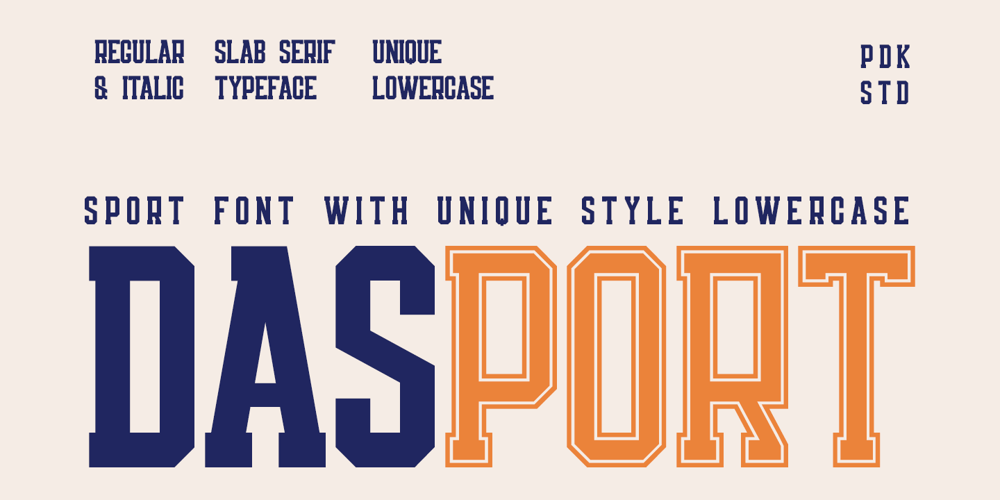
Dasport
Dasport font
Dasport Font Family was designed by Sagara Nararya and published by Pandeka Studio. Dasport contains 2 styles and family package options. Introducing our new product, Dasport – a modern, bold, and authentic display font with unique style lowercase characters.Dasport is perfect for any branding project, including logos, template designs, product packaging, and much more. It stands out in a wide range of contexts, making it a versatile choice for all your creative needs.Whether you’re designing for esport, fashion, or any other industry, Dasport Font adds a dynamic and eye-catching touch.What’s you get? Dasport Main Files Uppercase & Lowecase Letters Regular and Italic options Complete Special Ligatures Unique letterforms Works on PC & Mac Numeral & Punctuation Multilingual Support Currencies Simple Installations Instructions (Access special characters in all apps, even in Cricut Design) Accessible in the Adobe Illustrator, Adobe Photoshop, Microsoft Word even work on Canva PUA Encoded Characters Fully accessible without additional design software. Feel free to follow, like and share. Thanks so much for checking out my shop!Have a great day!Pandeka Studio